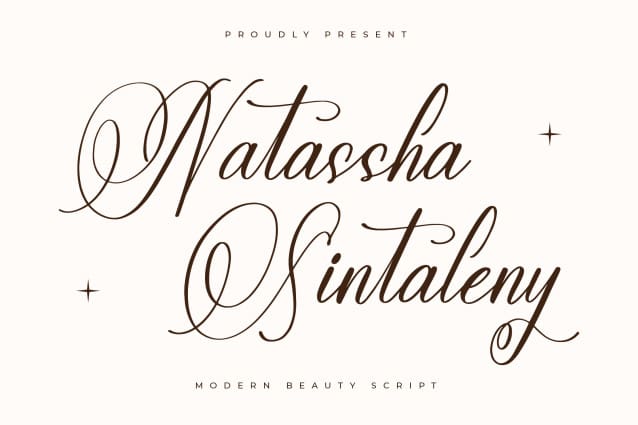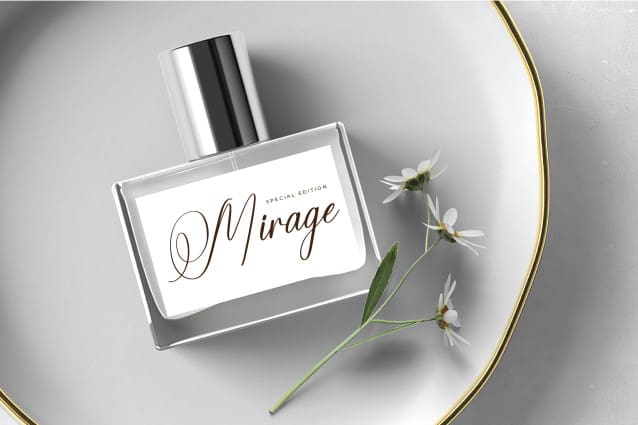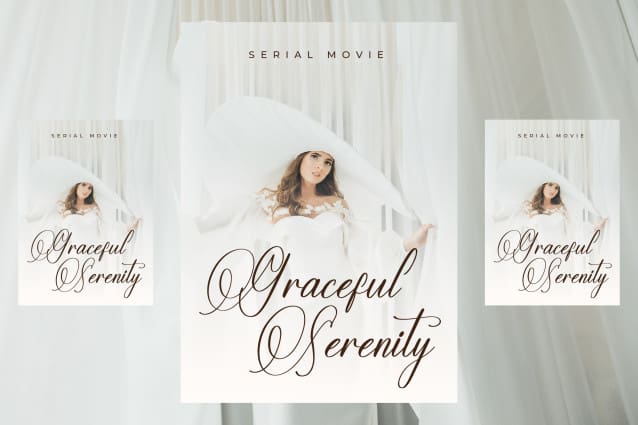
Natassha Sintaleny Font
Natassha Sintaleny Font – Modern Beauty Script , from Letterena, is a Luxury Script font, suitable for any projects such as: logos, branding projects, homeware designs, product packaging, mugs, quotes, posters, shopping bags, t-shirts, book covers, name card, invitation cards, greeting cards, label, photography, watermark, special events, and all your other luxury and beautiful projects that need a Luxury Script taste.